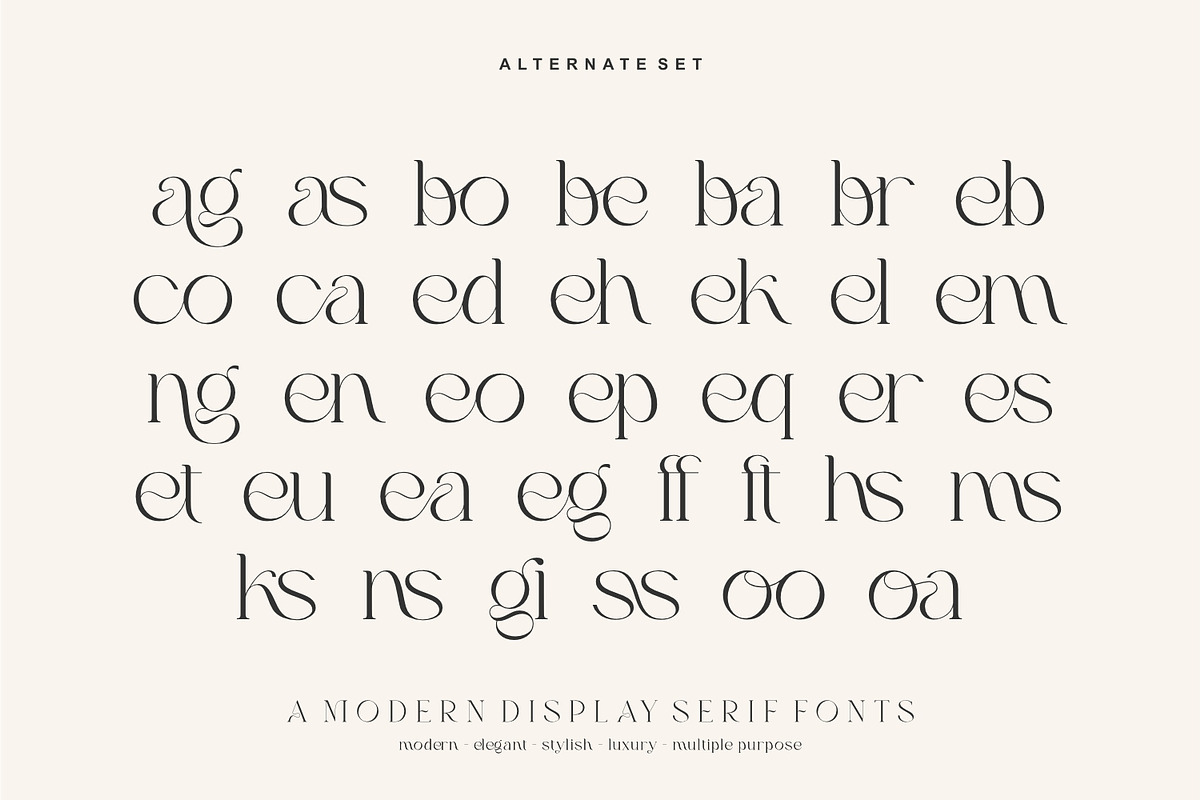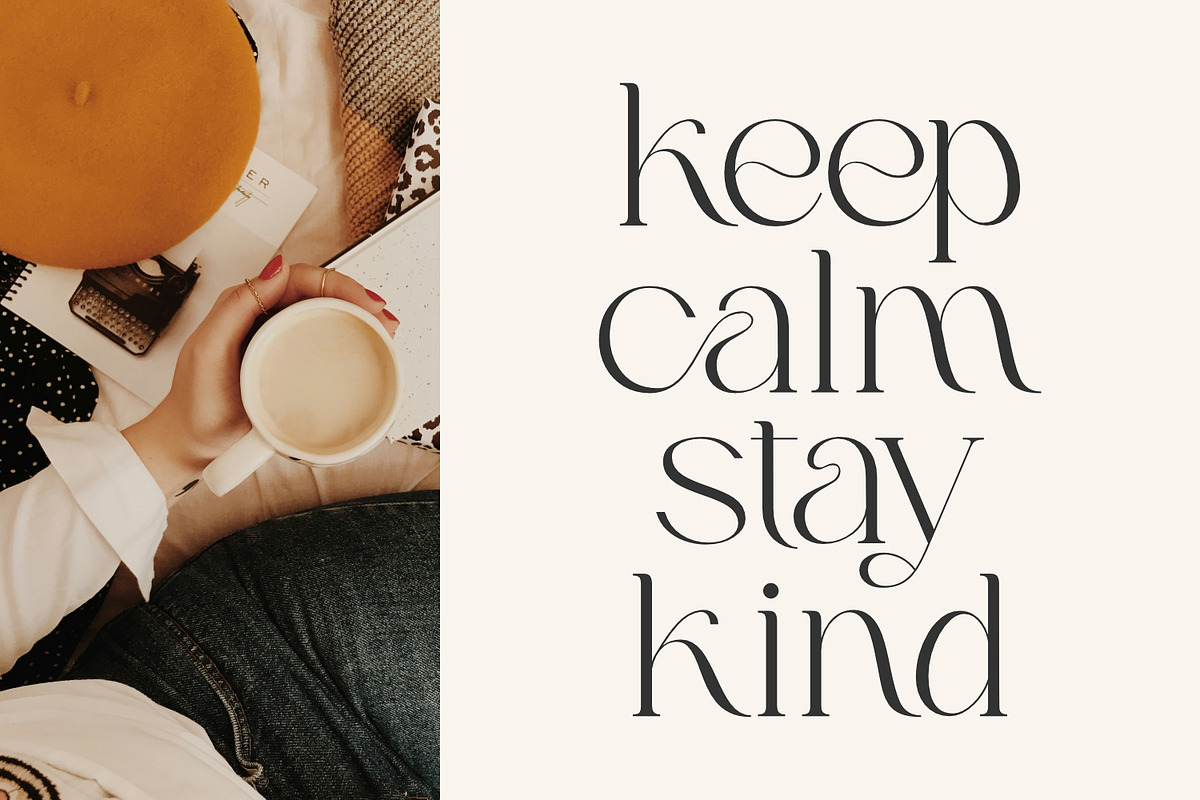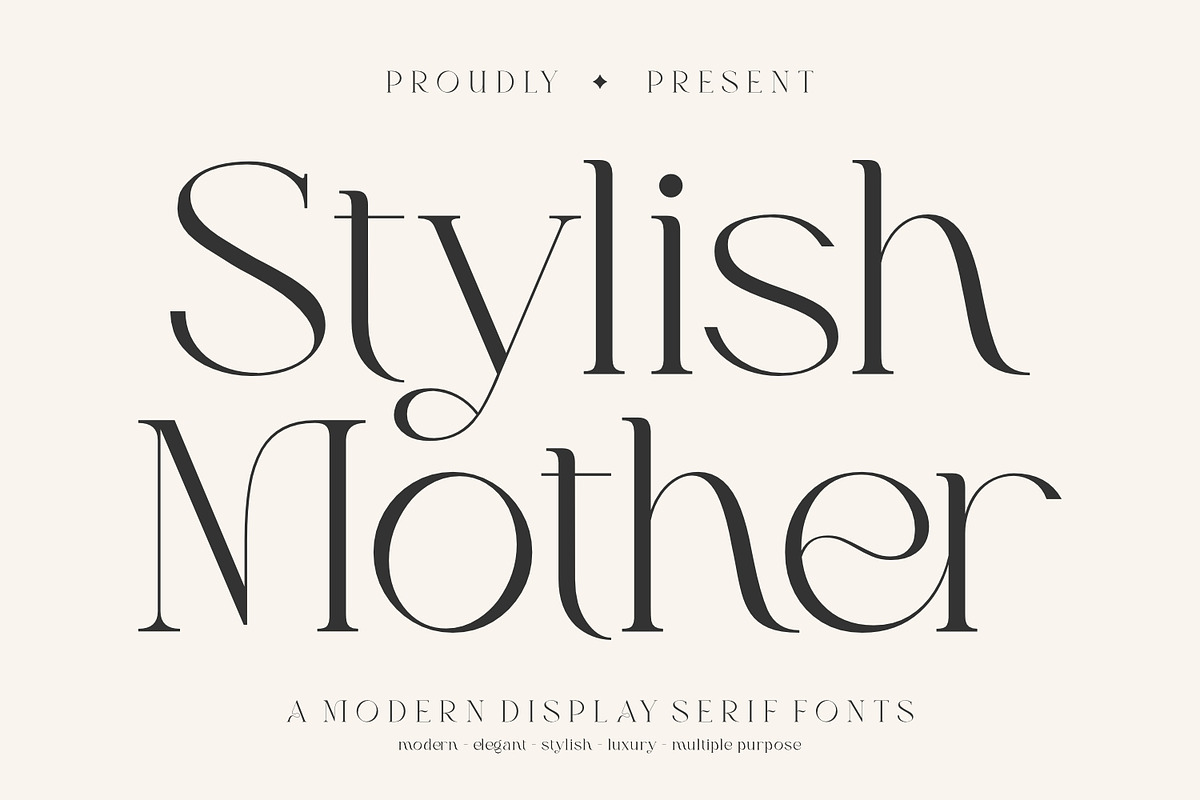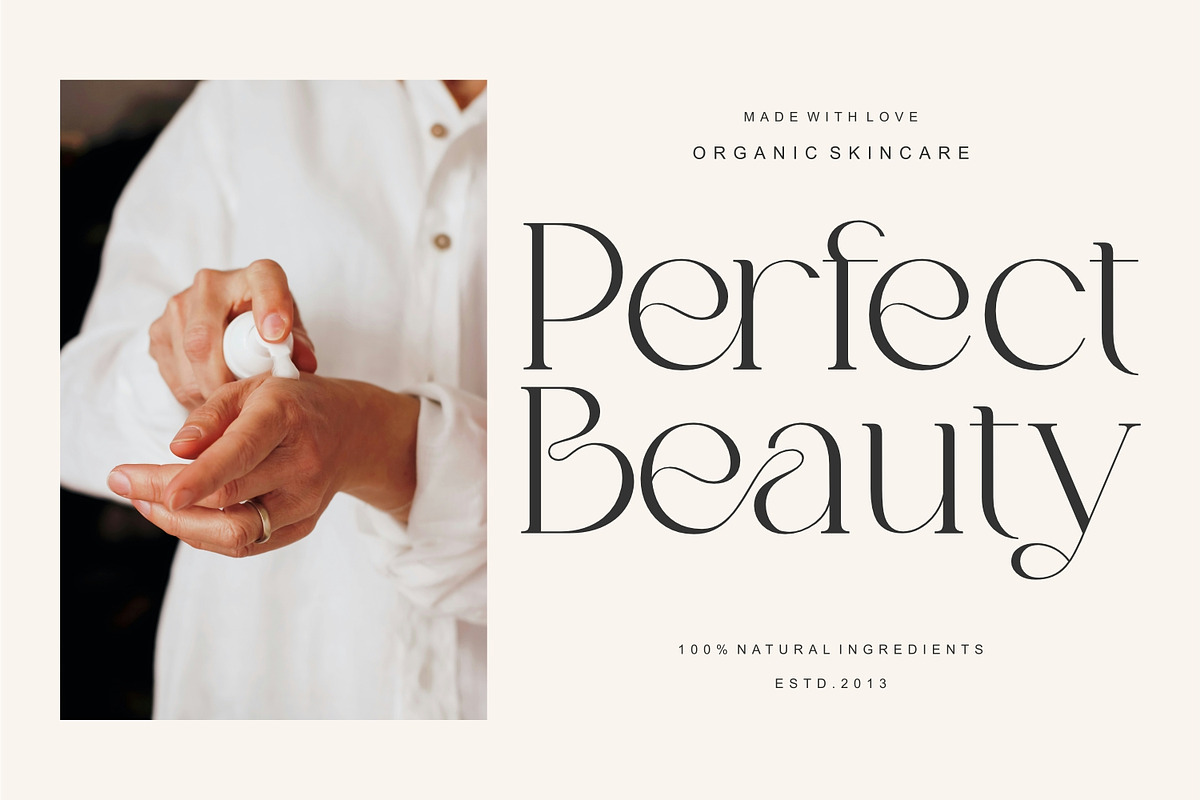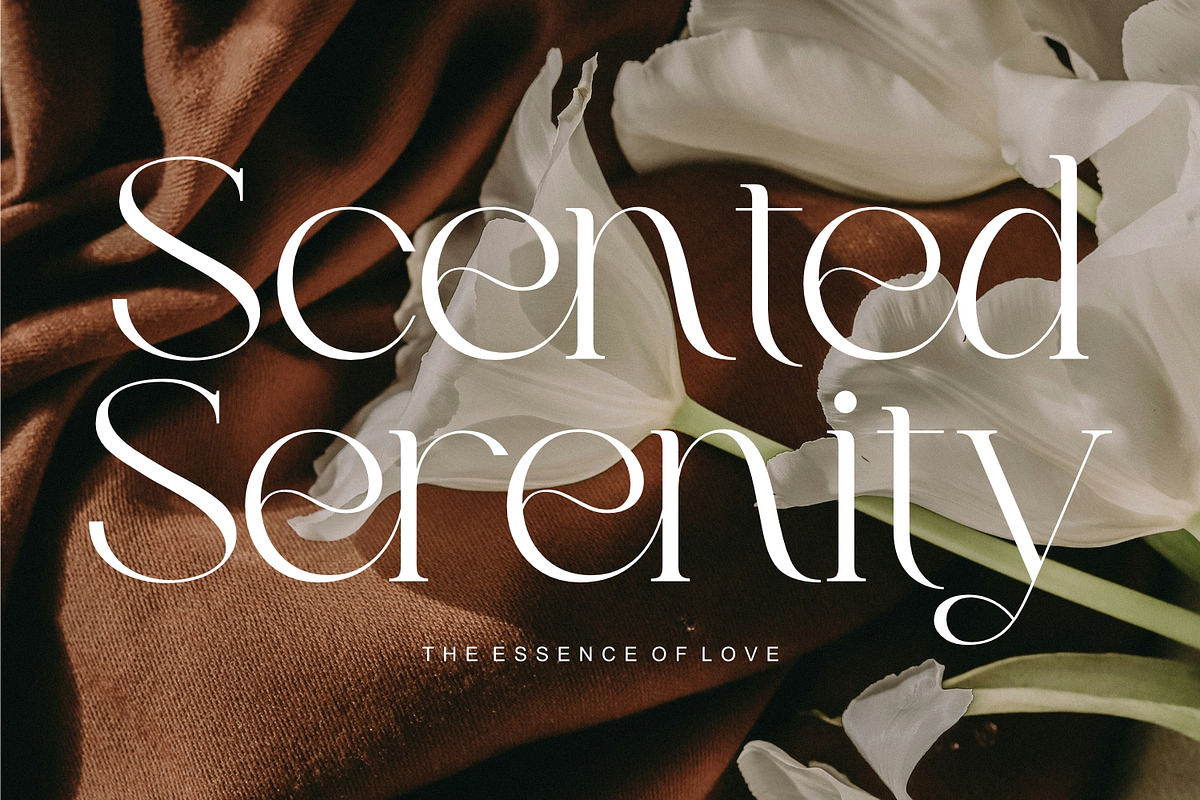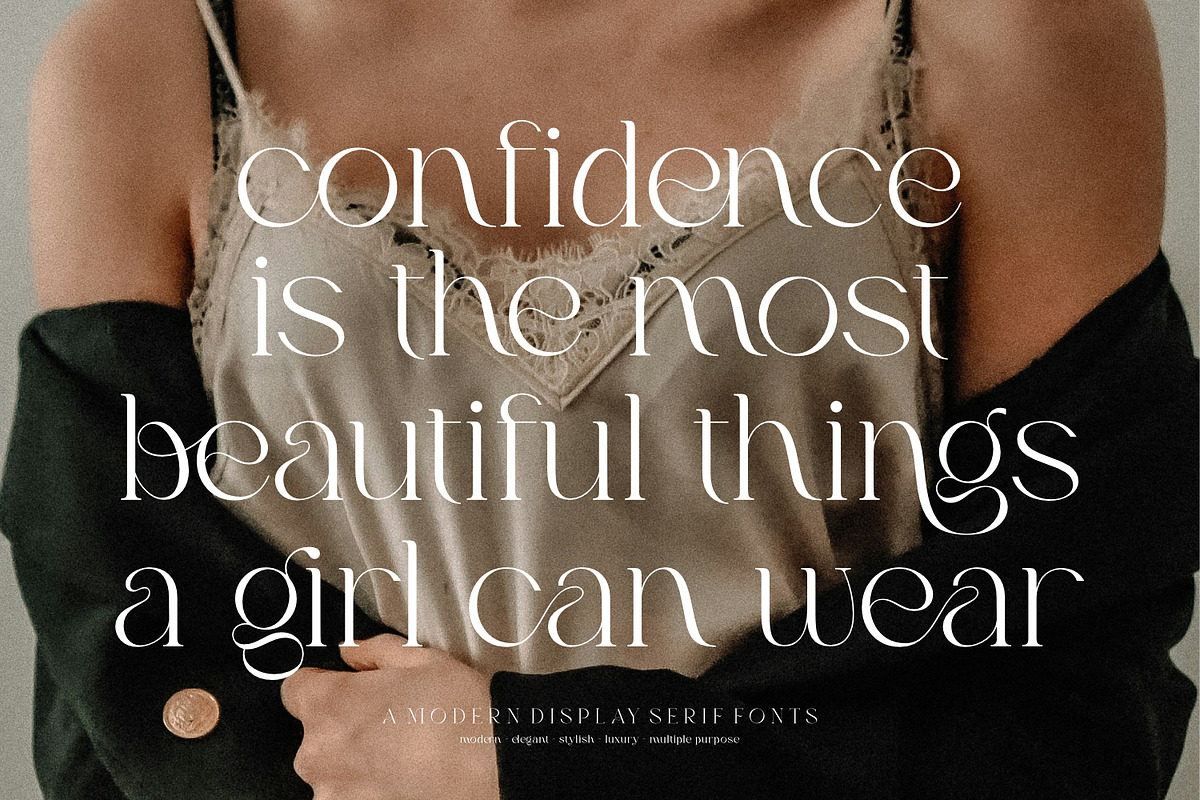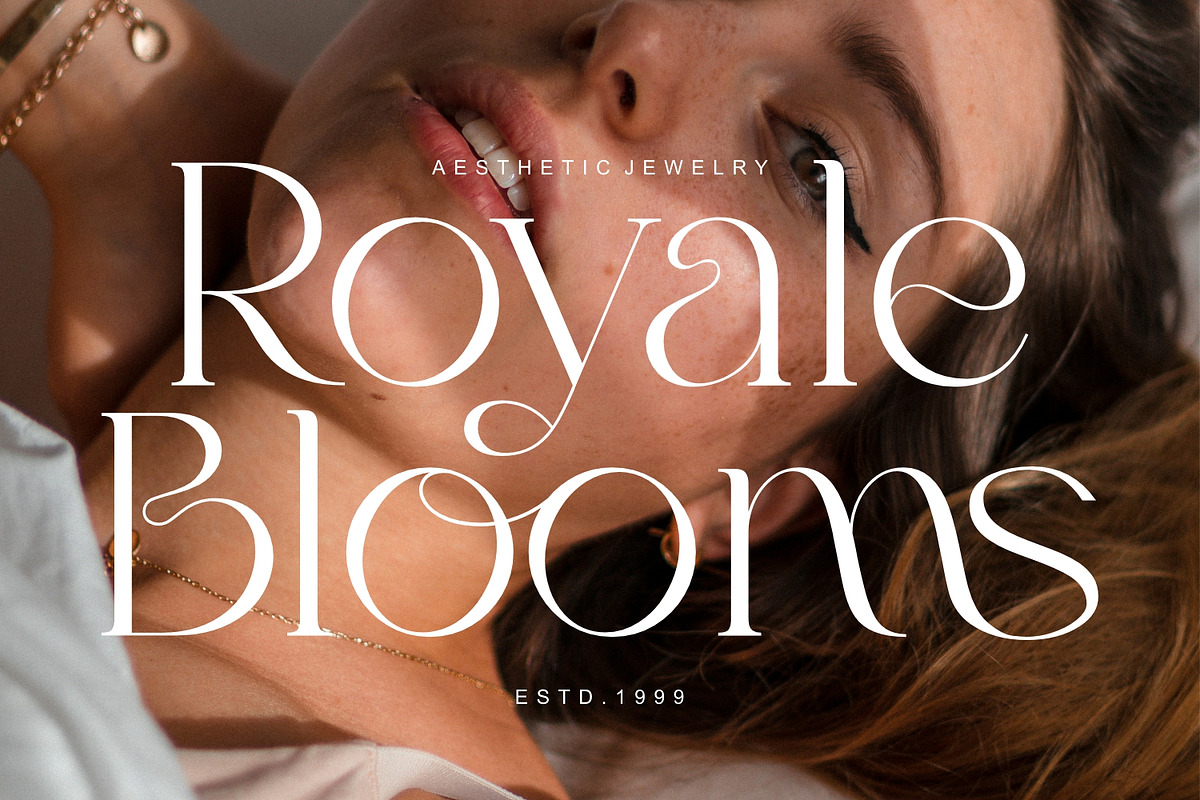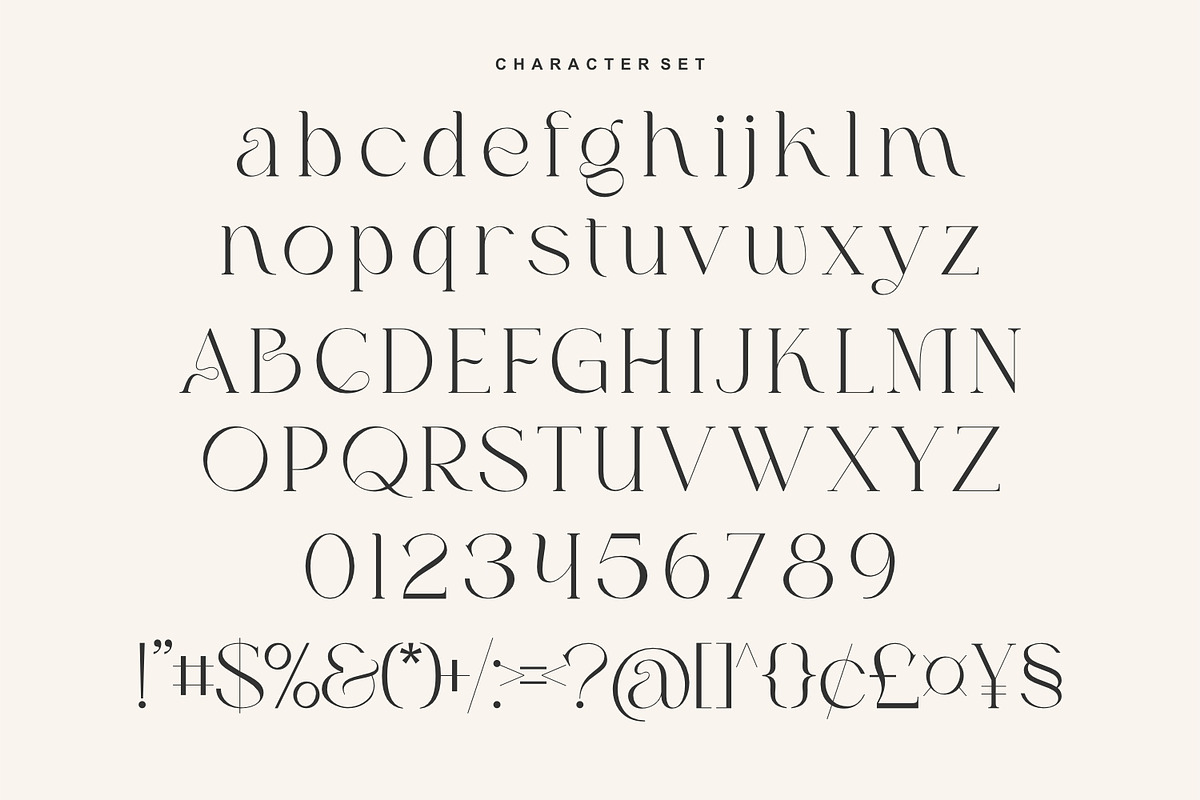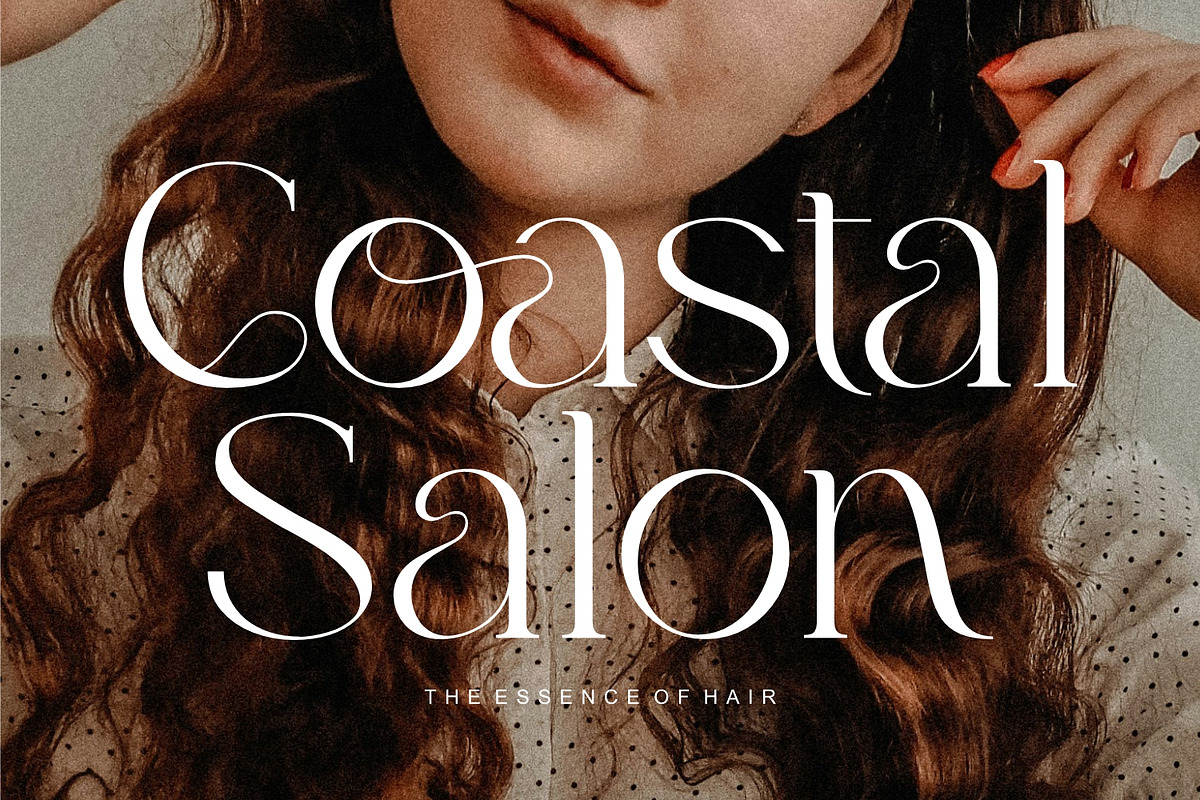
Stylish Mother - Display Serif Font
Stylish Mother Font is a delightful blend of modern elegance with an irresistible touch of romance. This suave display serif font brings a unique touch of luxury, artfully metamorphosing romantic vibes into chic lettering. Excellently suited for a bevy of projects, Stylish Mother Font is versatile enough to embellish everything from logos to crafts, posters to books, making every branding expression unique.
It’s the perfect pick for quote designs, print templates, packaging, invitations and product labels. Whether it’s an advertising endeavor or a wedding project, this font adds a splash of refinement. Featuring a complete set of uppercase and lowercase letters, punctuation, symbols, numerals and ligatures, this typeface is the perfect companion for designers seeking a modern, stylish touch.